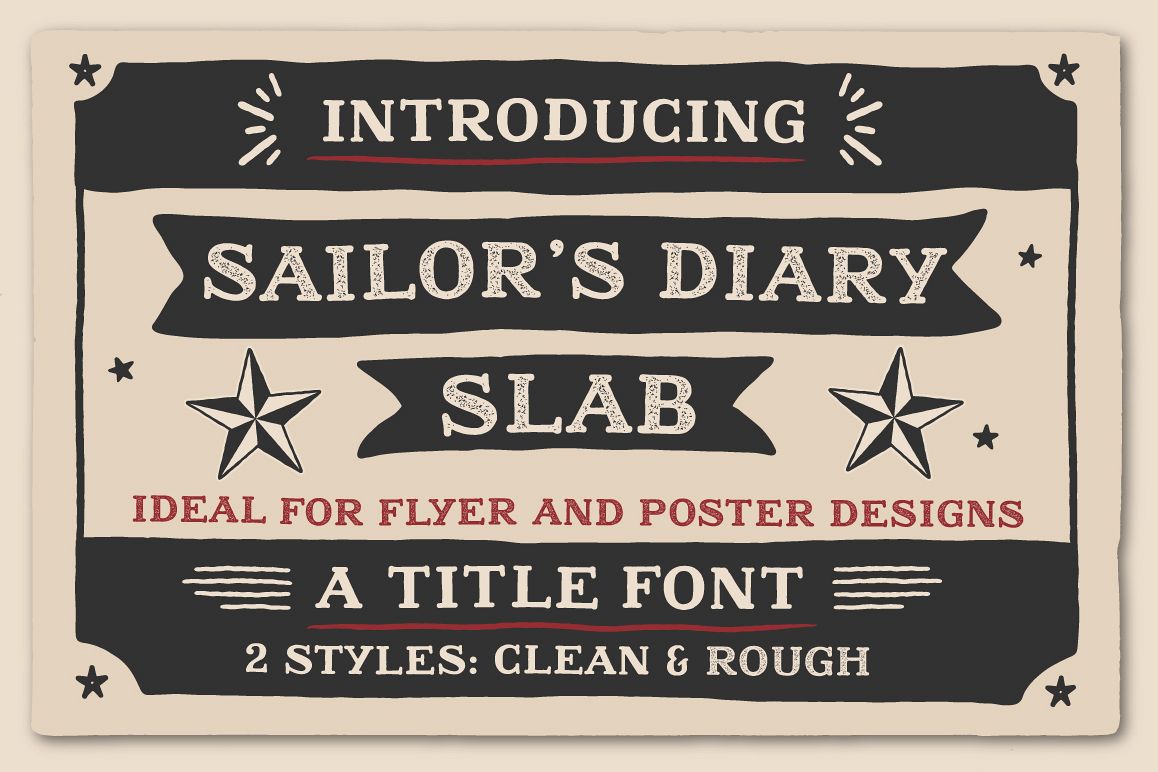
Sailors Diary Title Slab Tattoo Style Font
Hand Made Tattoo Style Font
Thanks for checking out this hand drawn traditional tattoo font. This font is perfect for posters and flyer in traditional tattoo design styles.
• 2 Styles - Clean & Rough
• Punktuation
• Special Characters